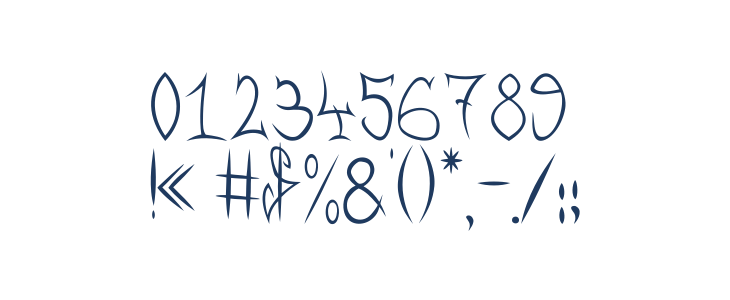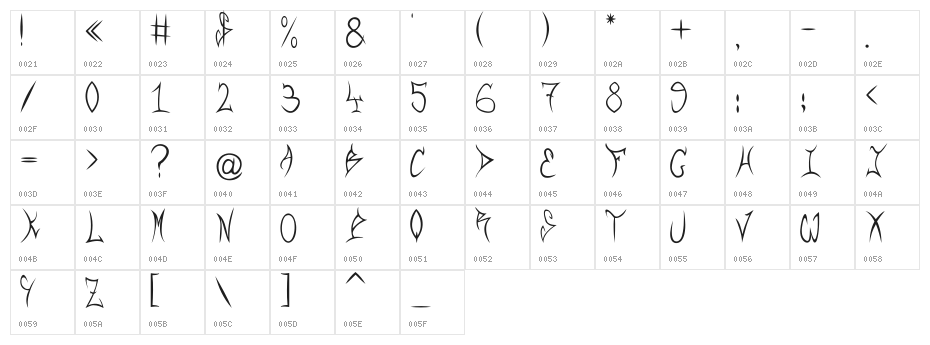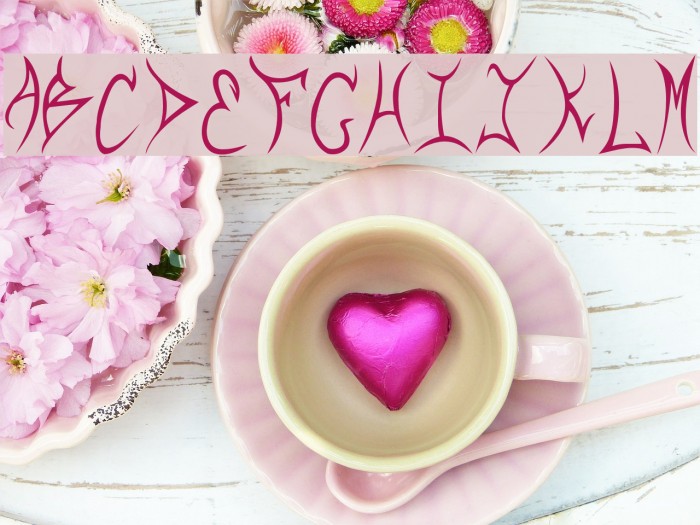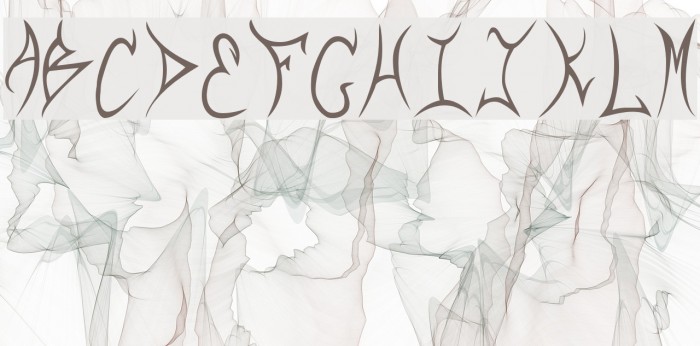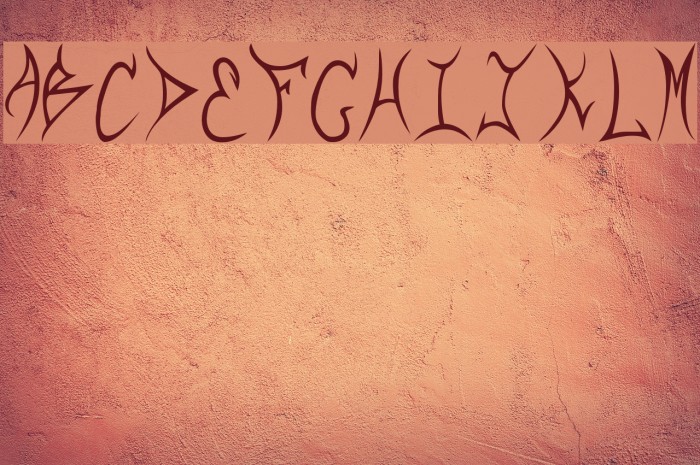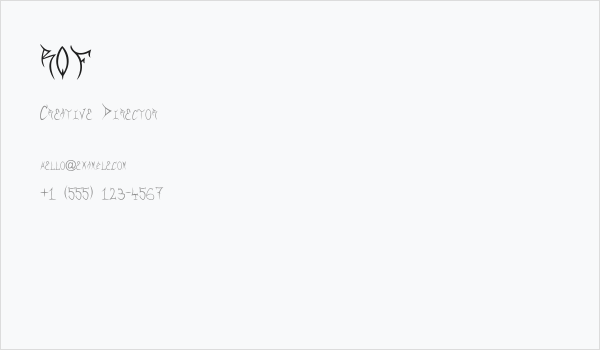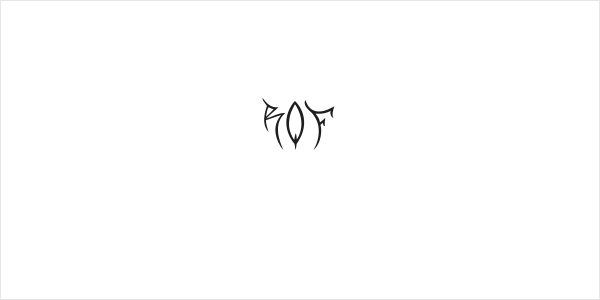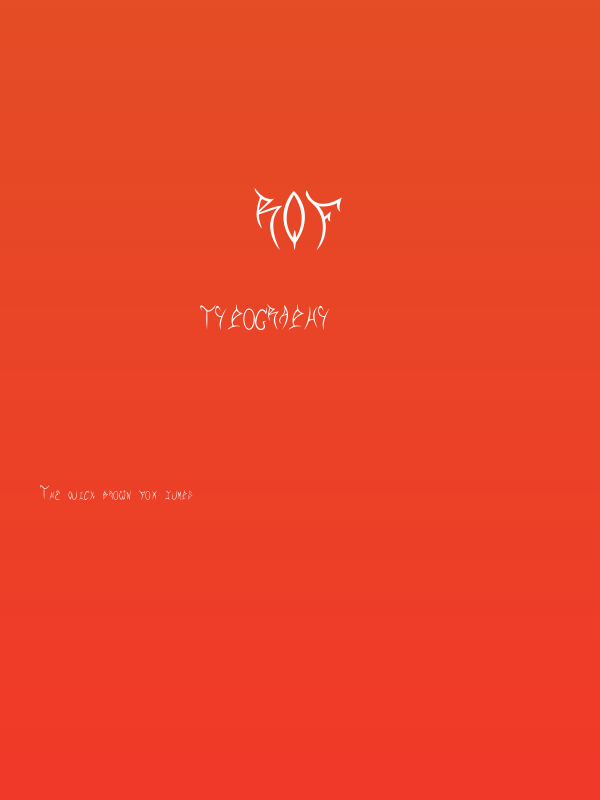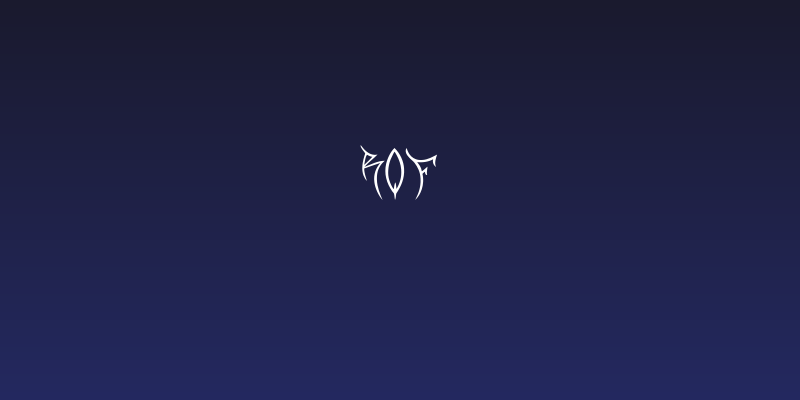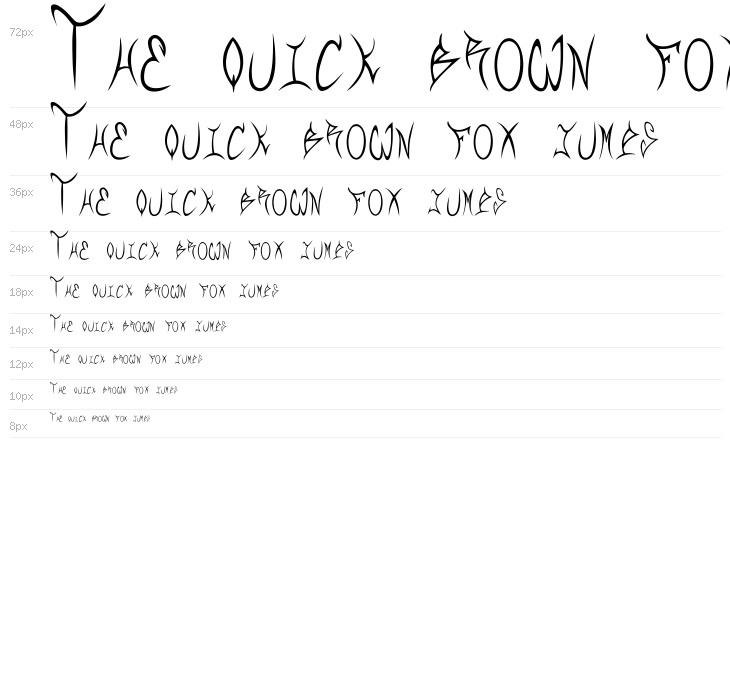
RQF Font
RQF Description
This font features a highly stylized and decorative design, characterized by sharp, angular lines and exaggerated curves. The uppercase and lowercase letters share a consistent theme of pointed edges and dynamic strokes, creating a sense of movement and energy. The numerals and special characters maintain this aesthetic, with unique shapes that stand out. The overall appearance is bold and eye-catching, making it suitable for projects that require a strong visual impact. The font's intricate design suggests a modern and edgy style, perfect for creative and unconventional applications.
| Overall Style | Modern, Edgy |
| Proposed Projects | Ideal for posters, album covers, video game graphics, and branding that requires a bold and edgy look. |